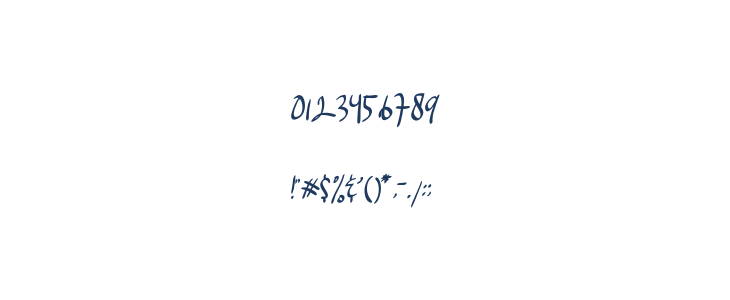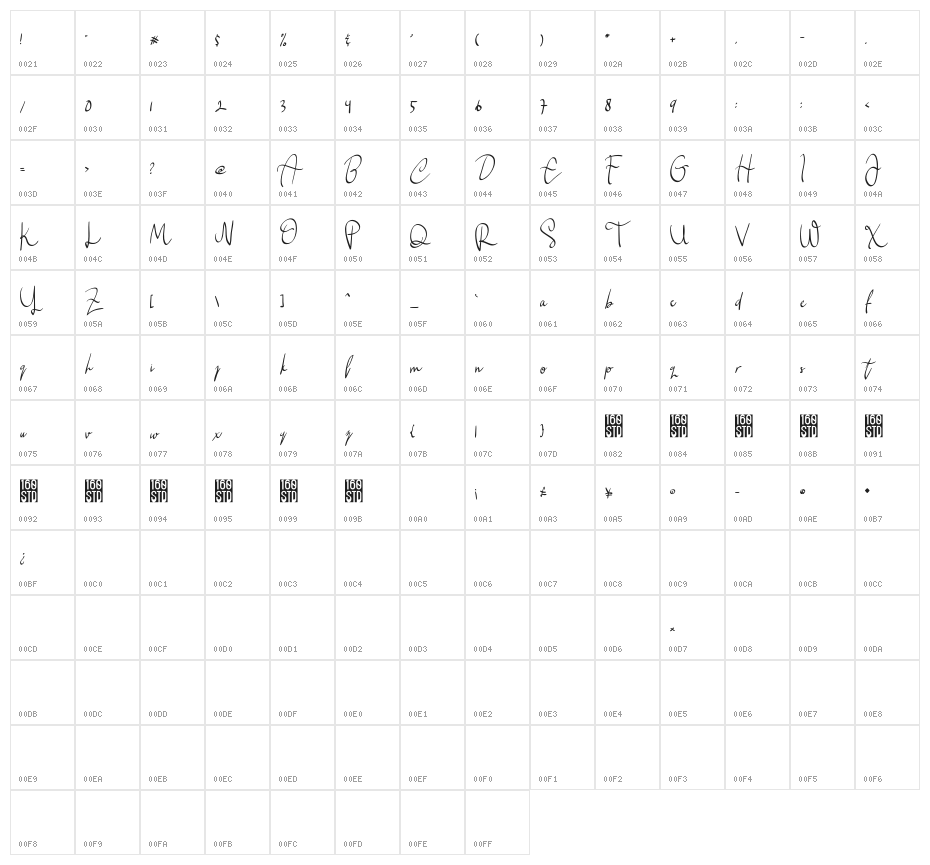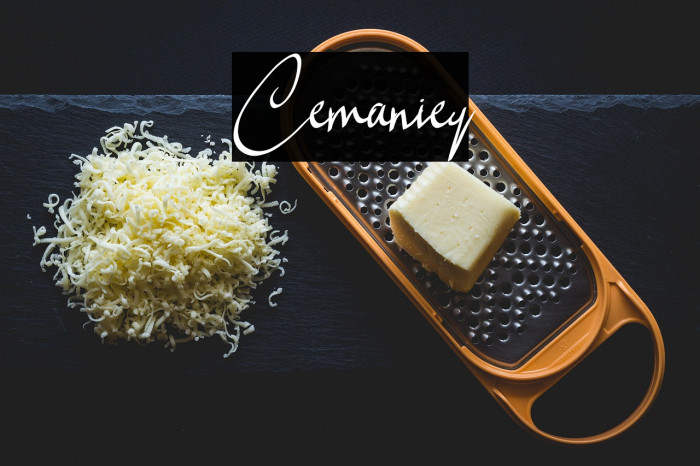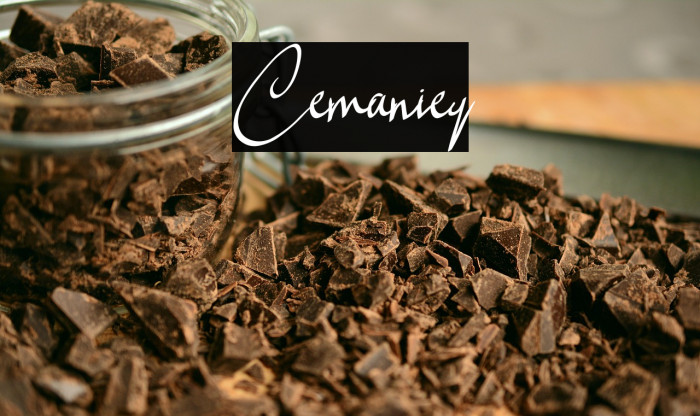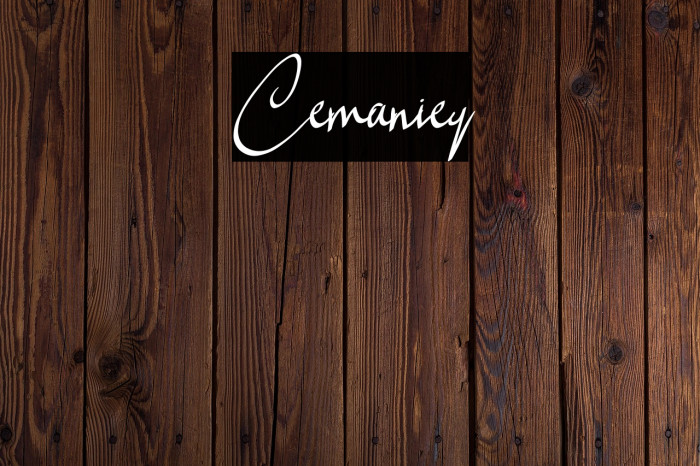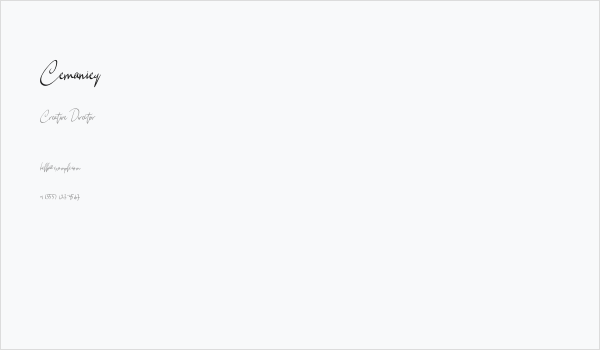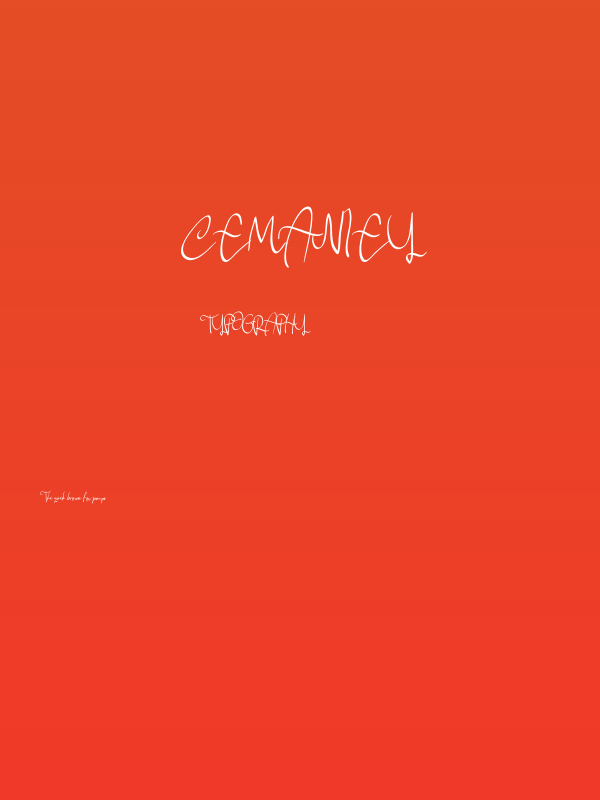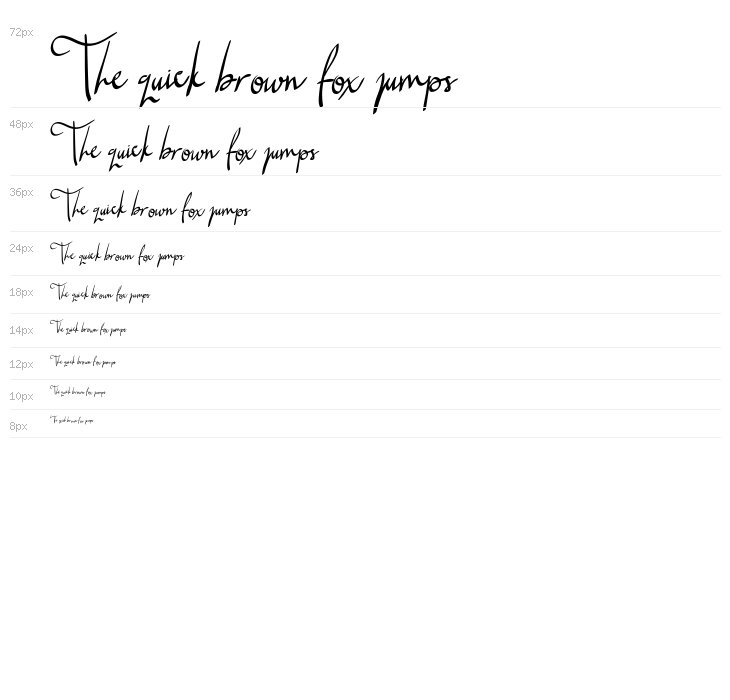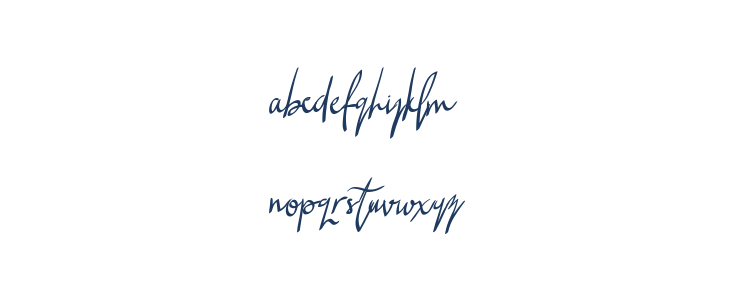
Cemaniey Font
Cemaniey Description
This font features an elegant and flowing script style, characterized by its fluid and interconnected letterforms. The uppercase letters exhibit a graceful and artistic flair, with varying stroke widths that add a dynamic quality to the text. The lowercase letters maintain a consistent flow, enhancing readability while retaining a sophisticated appearance. Numbers and special characters are designed with the same attention to detail, ensuring a cohesive look across all text elements. The overall design exudes a sense of creativity and elegance, making it suitable for projects that require a touch of sophistication.
| Proposed Projects | Ideal for wedding invitations, elegant branding, greeting cards, and artistic projects. |